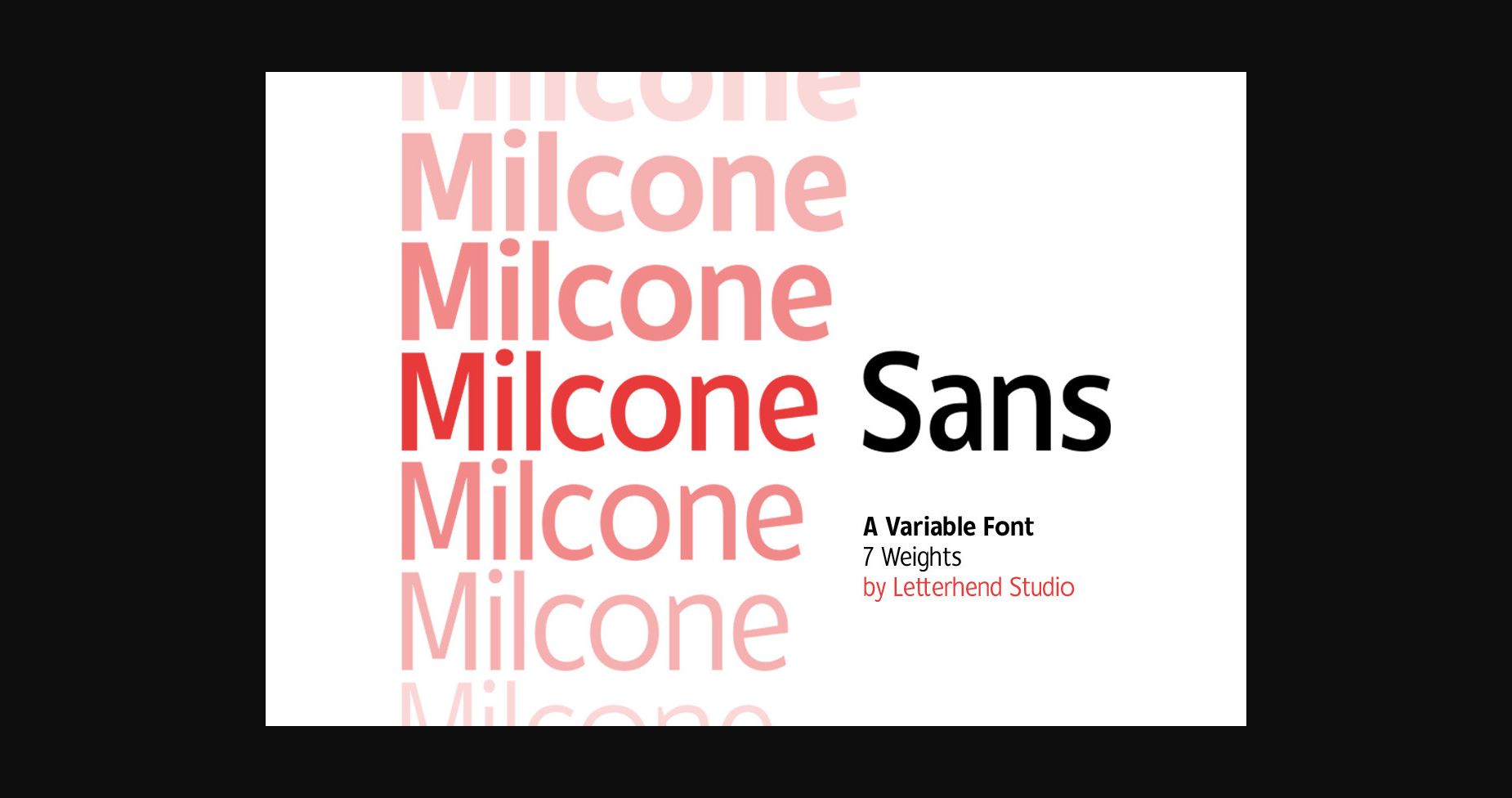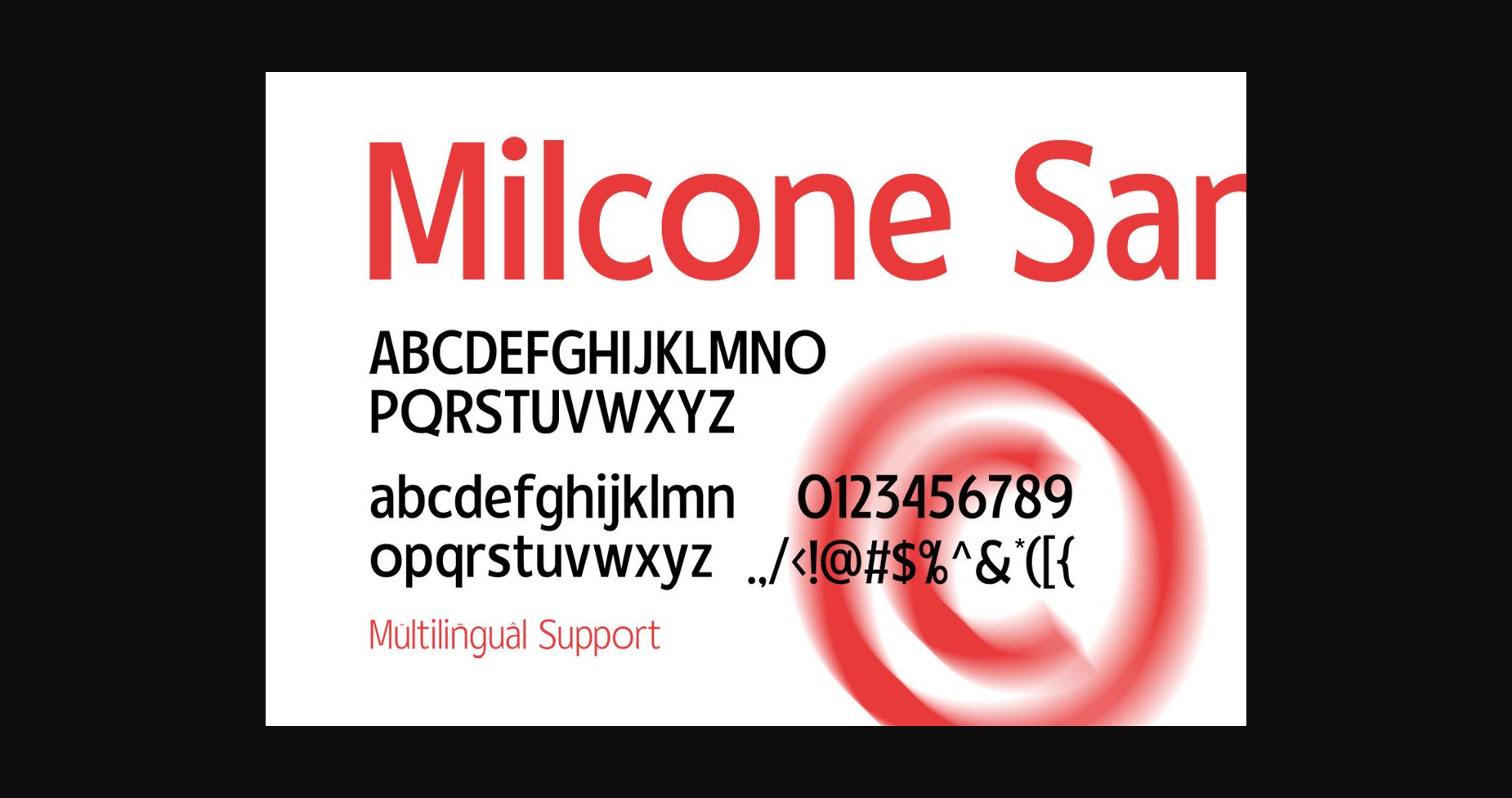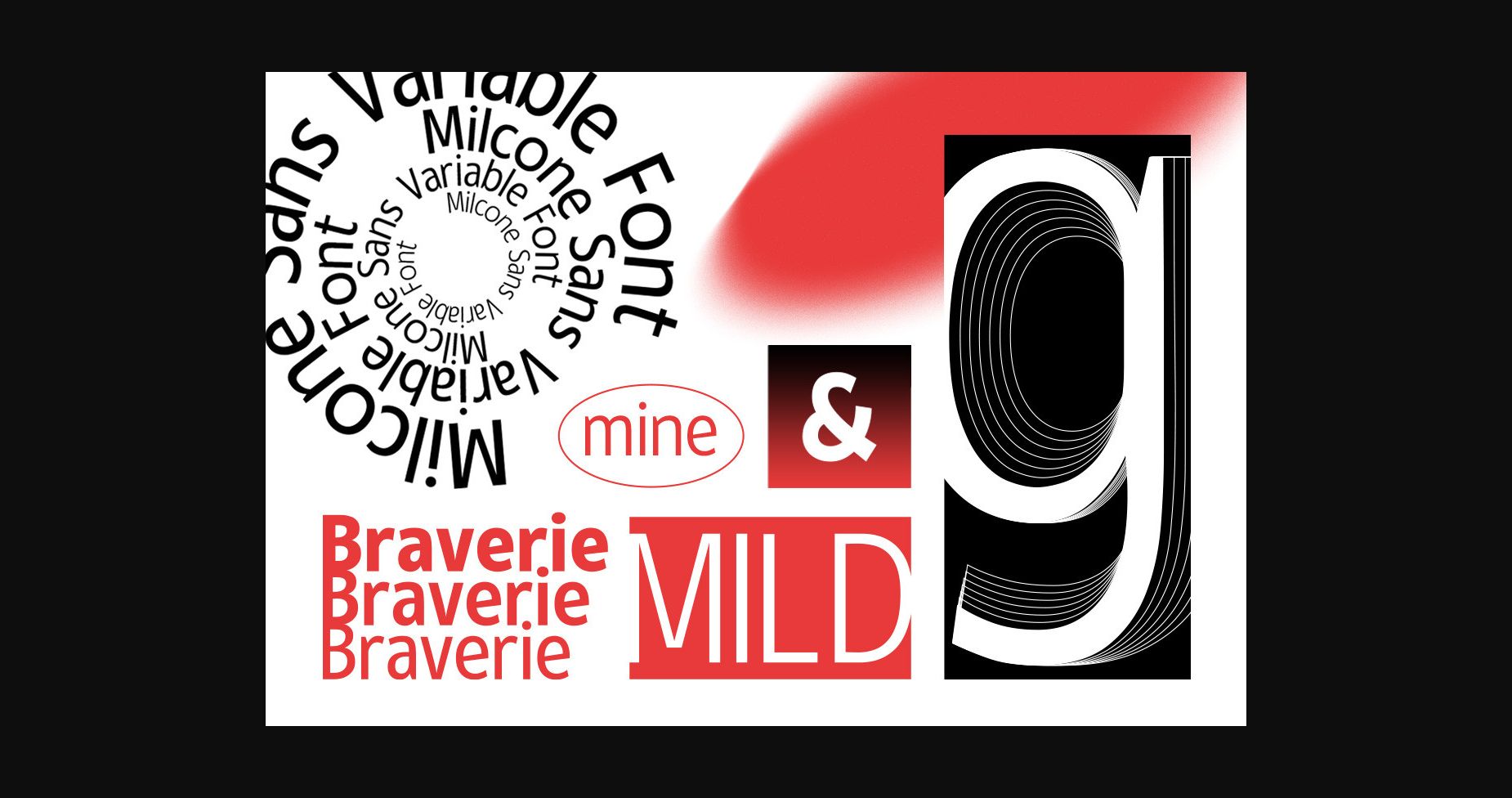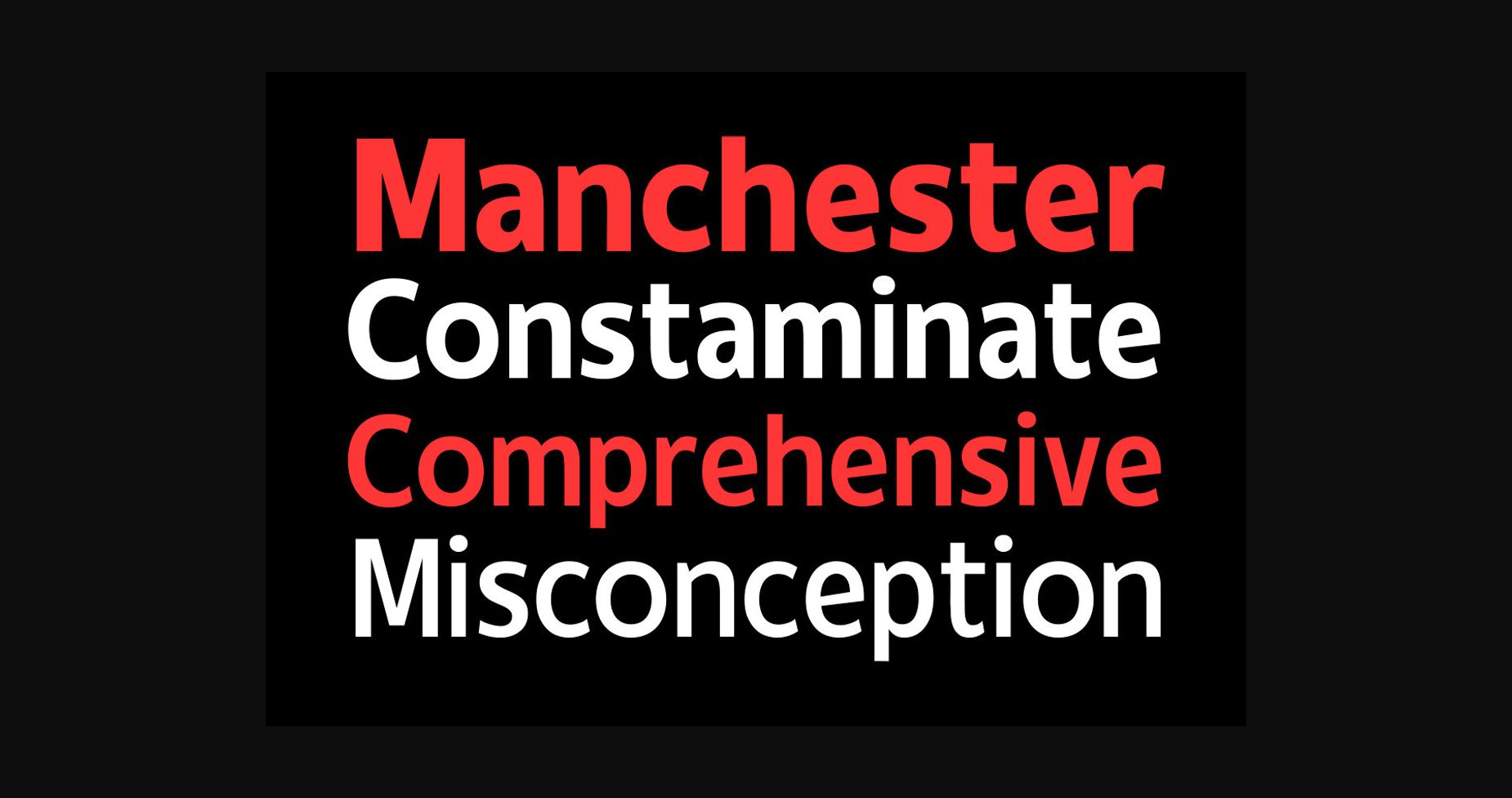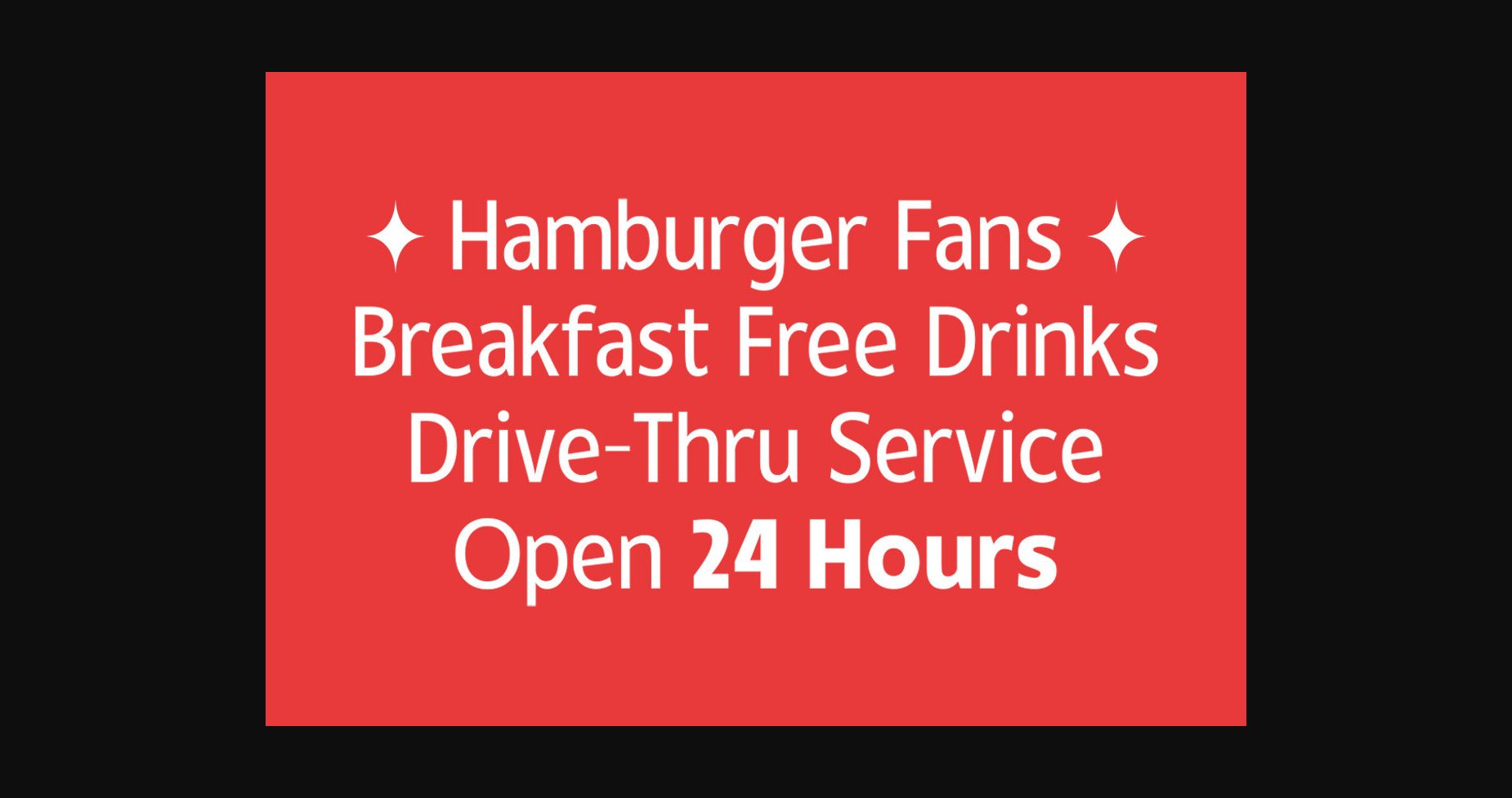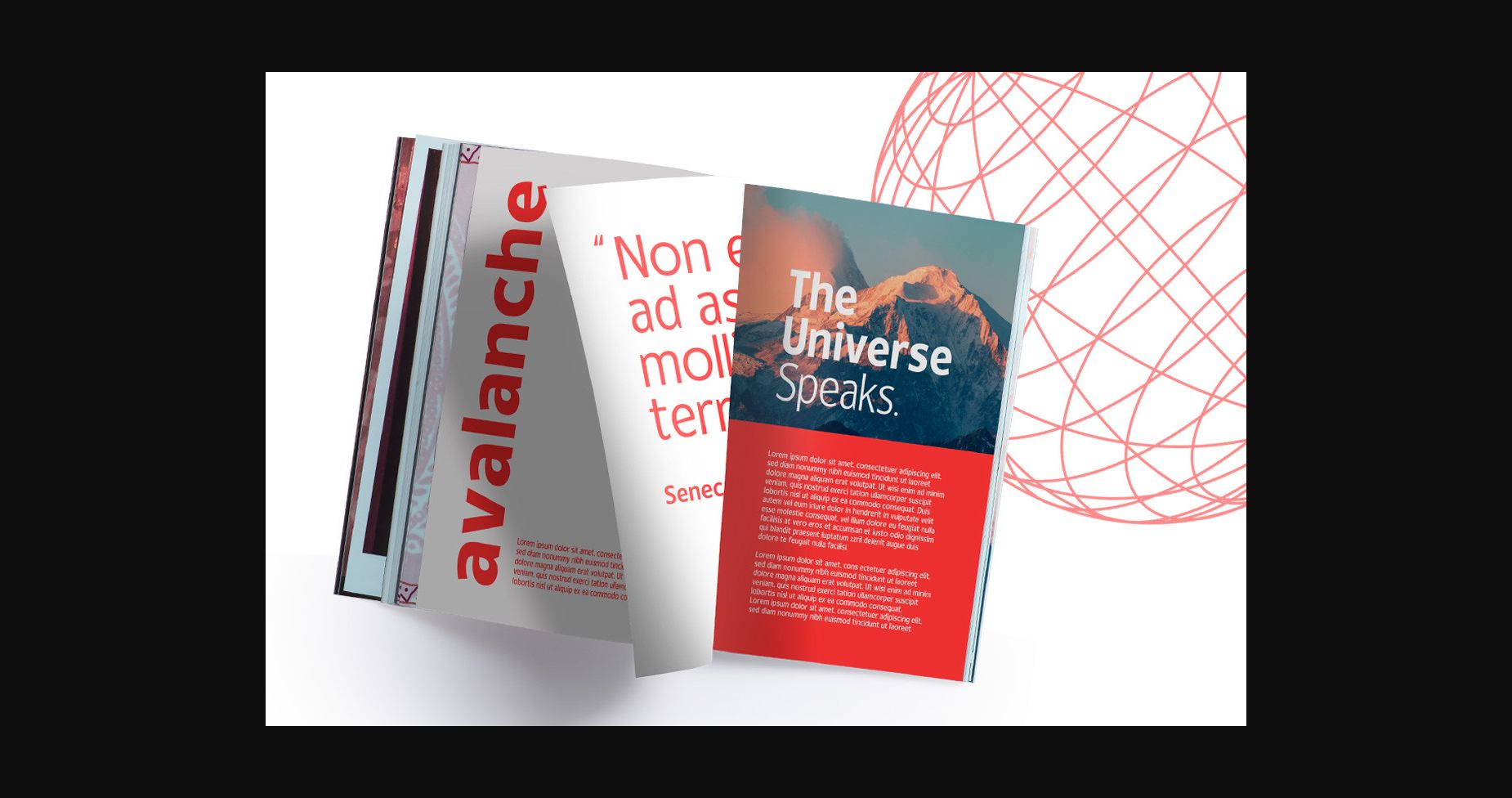
About Milcone Font
Introducing Milcone Sans, a versatile variable font designed to elevate your projects with a modern and professional touch. With its 7 weight variations, this font offers flexibility and adaptability to suit any design need. Whether it’s for digital or print, Milcone Sans delivers a sleek and contemporary aesthetic that exudes professionalism.